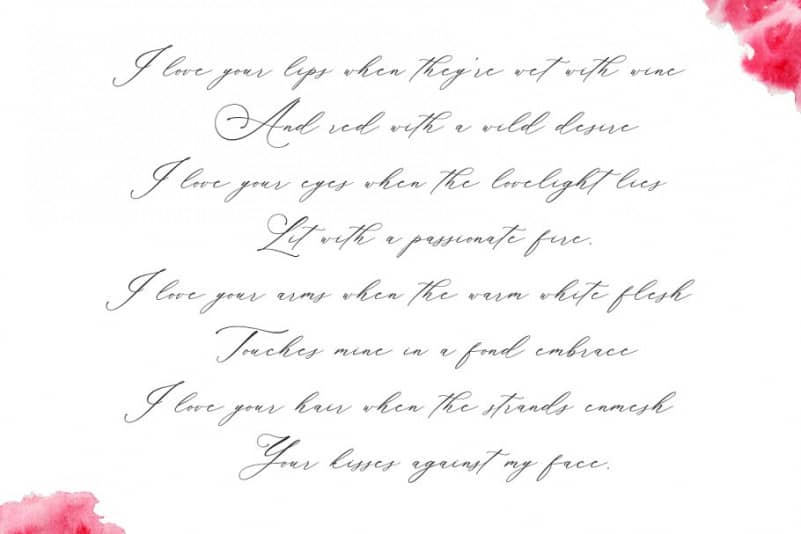
Planolla Calligraphy Font
Planolla Font is a new unique font. This is a script typeface with a modern calligraphy style. It has a modern and sophisticated appearance that can be used to add a unique personal touch to your designs. Planolla, a watercolor artist, collaborated on the Font. Ef studio developed and shared the Font. Planolla.otf, Planolla.ttf, and Planolla.woff are available font formats.
Basque, Catalan, Cornish, Croatian, Czech, Danish, Dutch, Embu, English, Esperanto, Estonian, Faroese, Filipino, Finnish, French, Galician, German, Hungarian, and others are among the languages supported by the Font. Amazing Ligatures, as well as beginning and ending swashes, are included in the typeface. Many people will like the fact that the Font is pua encoded. It contains a variety of different alternates that you can use in Adobe Illustrator or Photoshop by going to the glyphs panel. It’s simple to convert the lovely typeface to a web font.
The lovely Font is ideal for wedding invites, branding, business cards, and logos, among other things. The Font is also appropriate for any form of fancy work. It works well with a wide range of colors, from light to dark. Because of its bold and elegant texture, the Font can be used for any writing or headers.